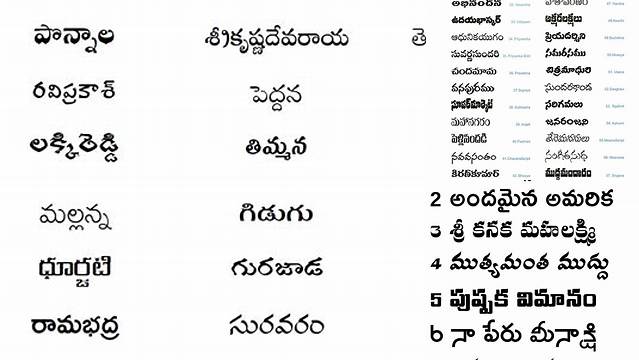
Best Telugu Fonts: Names & Usage Guide
Hey guys! Ever wondered about the best Telugu fonts out there? If you're diving into Telugu typing, design, or anything in between, knowing the right fonts is super important. Choosing the right Telugu font can seriously level up your work, making it look polished, easy to read, and culturally relevant. So, let's dive into the world of anu telugu fonts names, exploring the top picks and how to use them like a pro. I'll walk you through some of the best fonts, how to download and install them, and even some cool tips on how to make your Telugu text pop. Whether you're a seasoned designer or just starting, this guide has something for everyone. Let's get started and make sure your Telugu text looks fantastic!
1. Introduction to Telugu Fonts: Why They Matter
Alright, let's get real about Telugu fonts. Why are they so crucial, and why should you care about anu telugu fonts names? Well, think about it: the right font isn’t just about aesthetics; it’s about communication and cultural representation. When you choose a Telugu font, you're not just picking a style; you’re picking a way to connect with the language, its speakers, and its rich heritage. The nuances of a well-chosen font can make your message clearer, your design more appealing, and your overall project way more impactful. Imagine trying to read a book with a tiny, blurry font—not fun, right? The same goes for Telugu. The perfect font ensures that the text is legible, beautiful, and fits the context. Think about it this way: fonts set the mood. A bold, modern font might be perfect for a tech blog, while an elegant, traditional font suits a wedding invitation. Plus, certain fonts are designed specifically to handle the unique glyphs and complex character combinations of Telugu. It’s all about finding the right fit. When you're looking into anu telugu fonts names, you are also looking at the way your message is perceived. It's all about making your content accessible, engaging, and visually appealing. So, get ready to explore some amazing Telugu fonts, learn how to use them, and see your Telugu text come to life!
2. Top Telugu Fonts: A Comprehensive List
Alright, let's get down to business and talk about the best Telugu fonts you can use. There are tons of options out there, so I’ll walk you through some of the most popular and effective choices. Finding the right font is all about understanding what you need, whether it’s readability, style, or just the right vibe. Here are some top picks based on different needs: for you to explore anu telugu fonts names, which is where you need to be.
Gautami: This is a classic choice, known for its clarity and elegance. It's widely used and works well in various contexts, from body text to headlines. The characters are well-defined, making it easy on the eyes. Gautami is excellent for creating a professional look, so it's a great option for documents, books, and formal communication. If you want something versatile and reliable, Gautami is a solid bet. It ensures your Telugu text is easy to read and looks great, too.
Vrinda: Vrinda is another strong contender, loved for its modern and clean appearance. This font is fantastic for digital displays, as it offers excellent legibility on screens. Vrinda is often used in websites, apps, and presentations where readability is crucial. If you are thinking about the best of anu telugu fonts names, remember that Vrinda's design strikes a perfect balance between style and function.
Telugu MN: This font is specifically designed to handle the complexities of the Telugu script, making it an excellent choice for extensive text. It supports all the necessary glyphs and ligatures, ensuring that your text displays correctly and consistently. Telugu MN is perfect for long-form content like books, magazines, and articles. It ensures a smooth reading experience for your audience.
Mandali: Mandali is known for its more traditional and artistic style. This font has a unique aesthetic that adds a touch of cultural flair to your design. If you're looking for a font that reflects the heritage of Telugu, Mandali is your go-to. It's ideal for invitations, posters, and any project where you want to showcase the beauty of Telugu script.
Suranna: This font offers a contemporary and eye-catching look. Suranna’s design is slightly bolder, making it ideal for headlines, titles, and short text blocks where you want to grab attention. Use Suranna to make your text stand out and create a memorable impact. It's a fantastic choice if you want to add a modern touch to your project, and is the best choice of anu telugu fonts names that you can have.
Each of these fonts has its own strengths, from readability to stylistic flair. Choosing the right one depends on the specific needs of your project. Consider where the text will be used, the target audience, and the overall tone you want to convey. Let's move on and delve into the details to choose the right font!
2.1. Detailed Look: Gautami Font and Its Applications
Gautami is a standout Telugu font known for its readability and versatility. It’s a favorite among designers and writers, and for good reason. If you're looking into anu telugu fonts names, Gautami should be at the top of your list. The font is crafted with clarity in mind. The letterforms are distinct and well-defined, making it easy to read even in smaller sizes. This clarity is essential for body text in books, articles, and documents. The clean design of Gautami gives your text a professional and polished look. This makes it suitable for a wide range of applications, from academic papers to official communications.
This font isn't just about clarity; it also adapts well to various settings. It can be used in both digital and print formats without losing its visual appeal. Whether you're designing a website, creating a brochure, or writing a report, Gautami fits seamlessly. It also has a touch of elegance that makes it appropriate for more formal contexts. Consider using Gautami for invitations, greeting cards, or any project where you want to convey sophistication and respect. Choosing Gautami means you are choosing a font that enhances readability, elevates your design, and ensures your Telugu text looks great. It is a timeless choice for anyone working with Telugu fonts.
Alright, now that you know some of the best Telugu fonts, let's talk about how to get them onto your computer. Don’t worry, it's easier than you think! Downloading and installing fonts is a breeze, and I’ll walk you through the steps. First off, where do you find these amazing fonts? Websites like Google Fonts, Font Squirrel, and various font foundries often offer Telugu fonts. When looking for anu telugu fonts names, make sure they have an extensive library of options to choose from. Always check the licensing agreement before downloading, as some fonts are free for personal use only, while others can be used commercially. Once you have the font files, which typically come in .ttf (TrueType Font) or .otf (OpenType Font) format, it's time to install them.